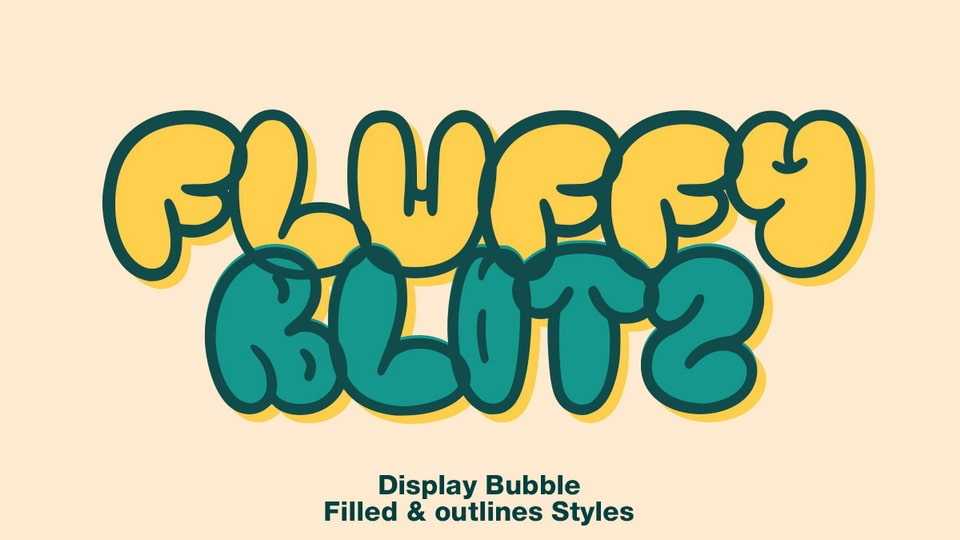
Download Fluffy Blitz font, a bold and playful graffiti bubble typeface that brings a vibrant energy to your designs! Fluffy Blitz combines a fun, rounded, and balloon-like appearance with a touch of edgy street art vibes.